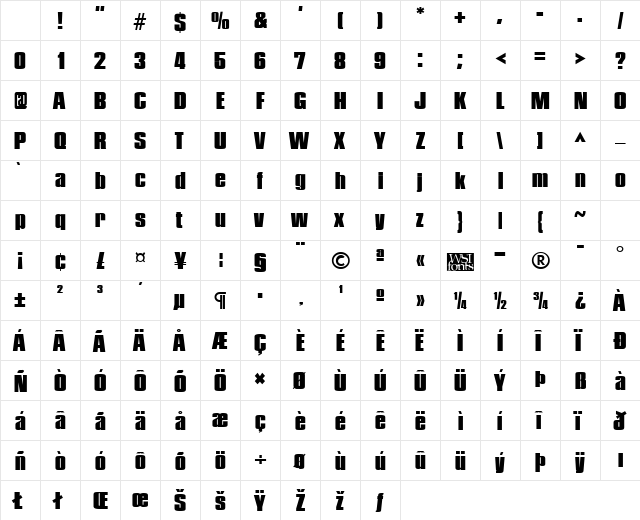
PledgeBlack Regular Free Font
PledgeBlack Regular
PledgeBlack Family
Complete PledgeBlack Regular glyph index. Displaying only characters natively supported by PledgeBlack Regular font.
Design Context for PledgeBlack
PledgeBlack is a composed and adaptable typeface that performs quietly and consistently across a wide range of design contexts.